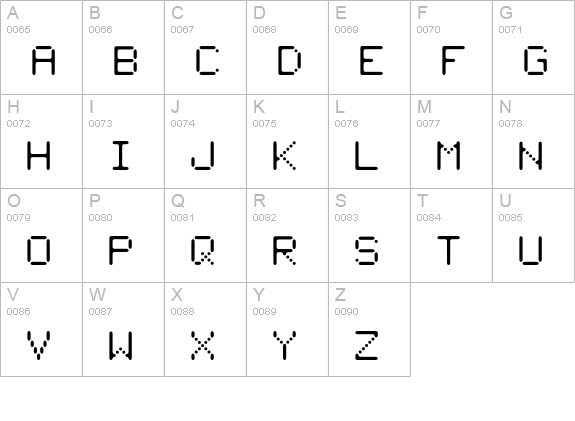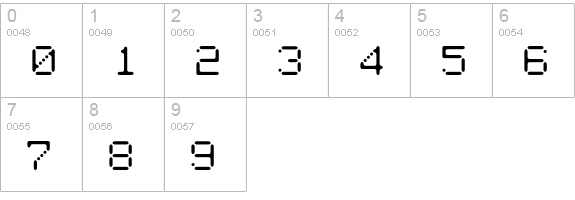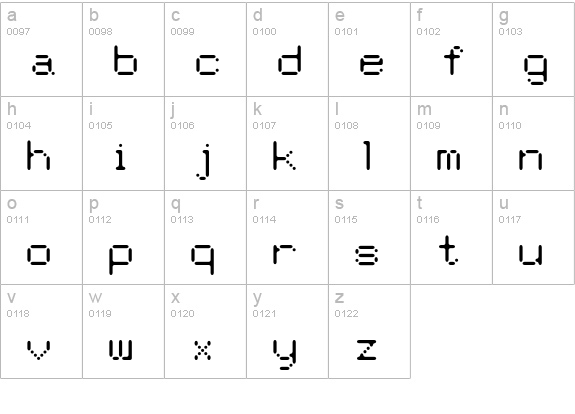
Therm-Dot Font Details
Therm-Dot font is an exquisite and unique typeface that combines the allure of classic typography with a modern twist. Its innovative design is inspired by the aesthetic of thermal printing, giving it a distinctive and eye-catching appearance. Each character in Therm-Dot font is meticulously crafted, featuring pixelated edges that evoke a sense of nostalgia and authenticity. This extraordinary font is perfect for a wide range of creative projects, including logos, posters, packaging, apparel design, and much more. Its versatility ensures that it can be used across various industries and design styles, making it a valuable asset for both professional designers and enthusiasts. One of the most remarkable features of Therm-Dot font is its ability to convey a sense of both precision and playfulness. Its clean lines and sharp corners give it a sleek and modern look, while the pixelated dots add a touch of whimsy and charm. This combination makes Therm-Dot font a truly unique and captivating typeface that will make any design stand out. And the best part? Therm-Dot font is available for free download at FontsMarket.com. This means that you can bring this exceptional font into your creative projects without any cost. Whether you are a professional designer looking to add a fresh and distinctive touch to your work or a hobbyist wanting to experiment with unique typography, Therm-Dot font is the perfect choice. So why wait? Discover the endless possibilities that Therm-Dot font offers and unleash your creativity today. Download it for free at FontsMarket.com and let your designs shine with its exceptional charm and style.